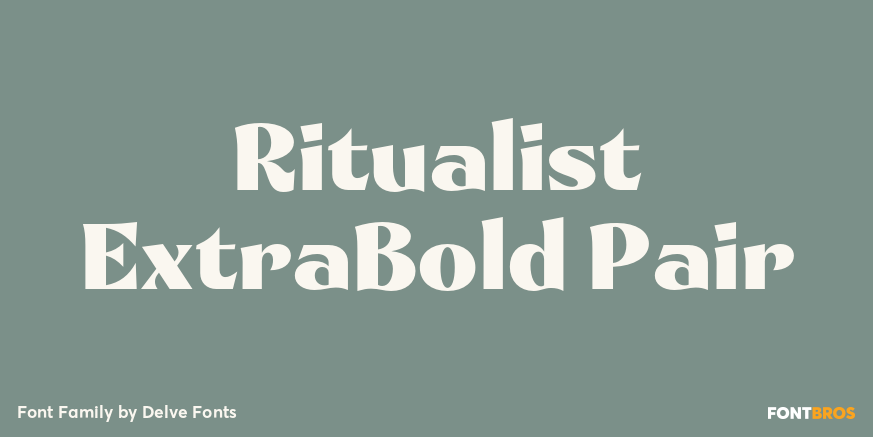
Ritualist ExtraBold Pair
Ritualist Pairs. Because sometimes the budget is tight or you just don’t need the entire type family but a single style simply isn’t going to cut it. This typeface is inspired by high-contrast wedge serif designs, like De Vinne, but viewed…